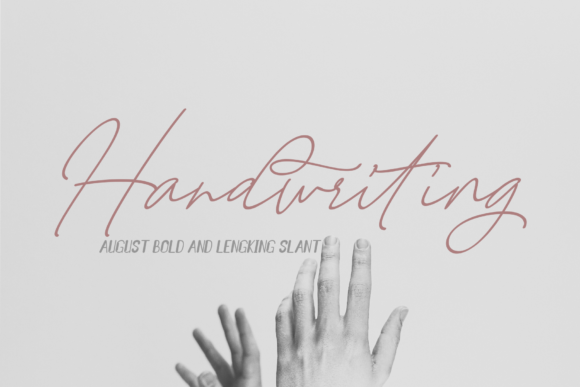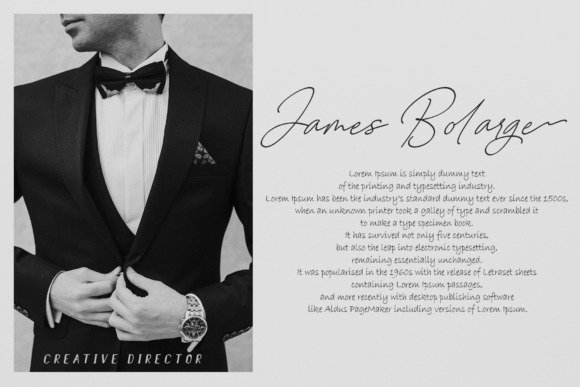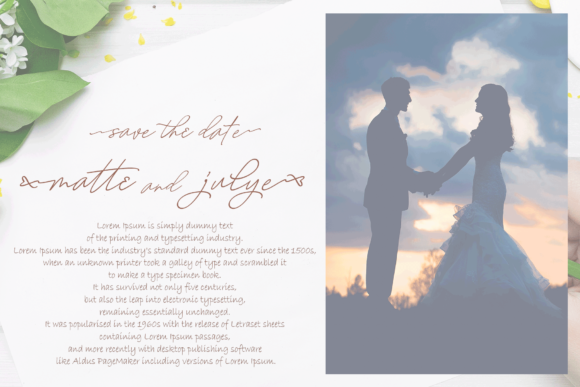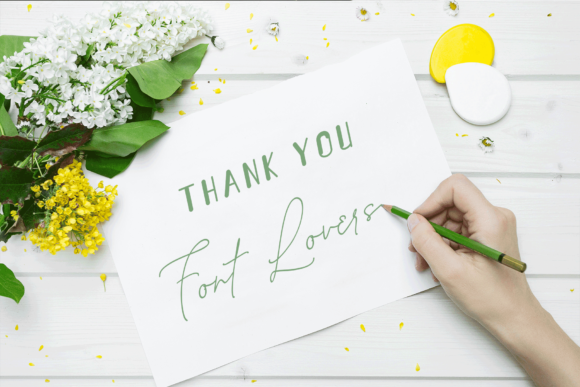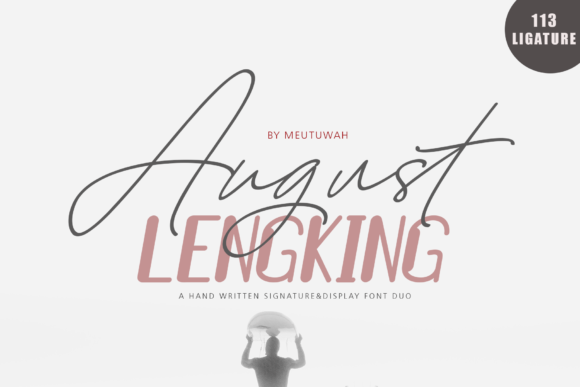
August Lengking Duo Font
About August Lengking Duo Font
This font duo includes a modern and classic style. The August has a dancing baseline which will give your designs an elegant touch, and the Lengking is perfect for adding a striking look.